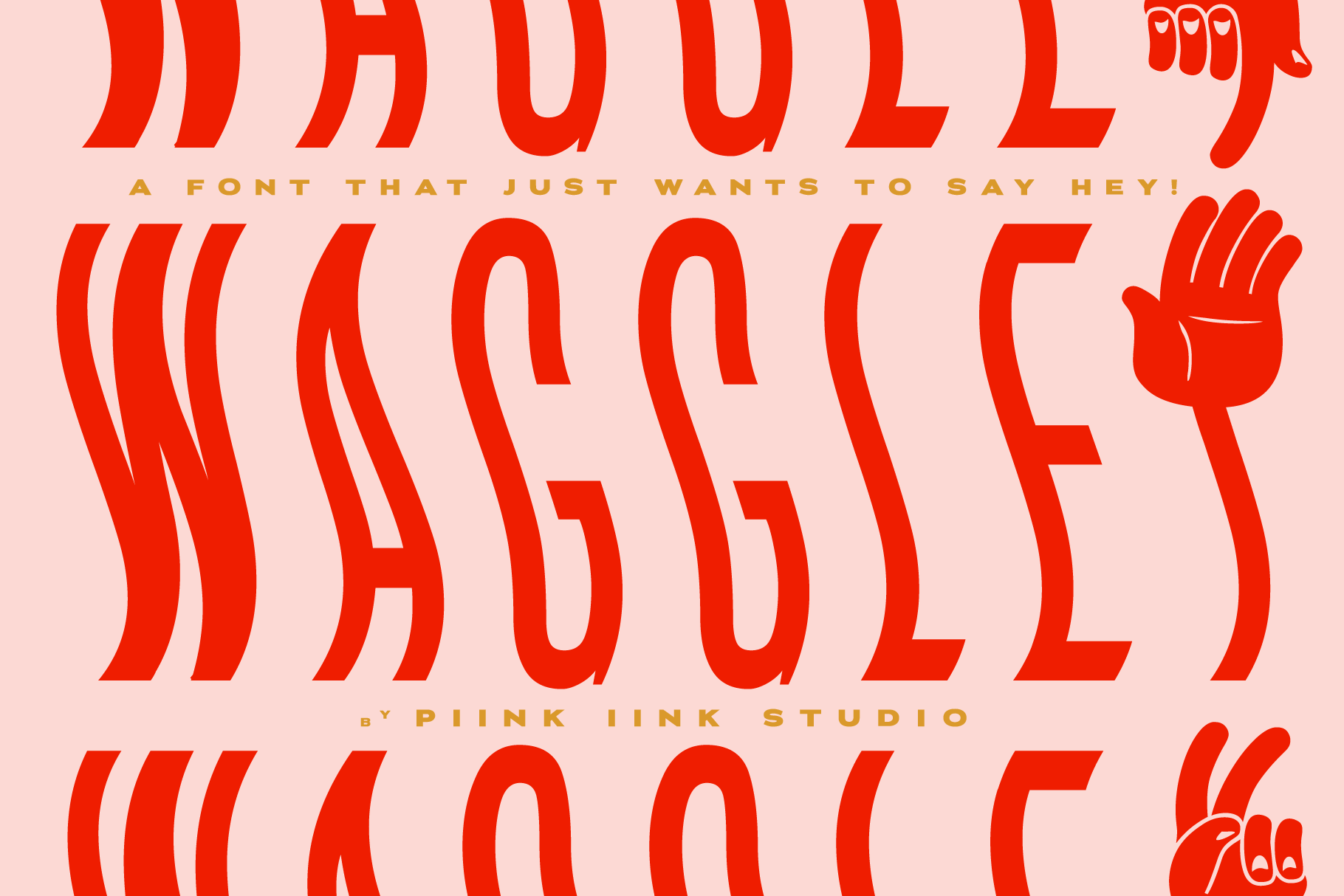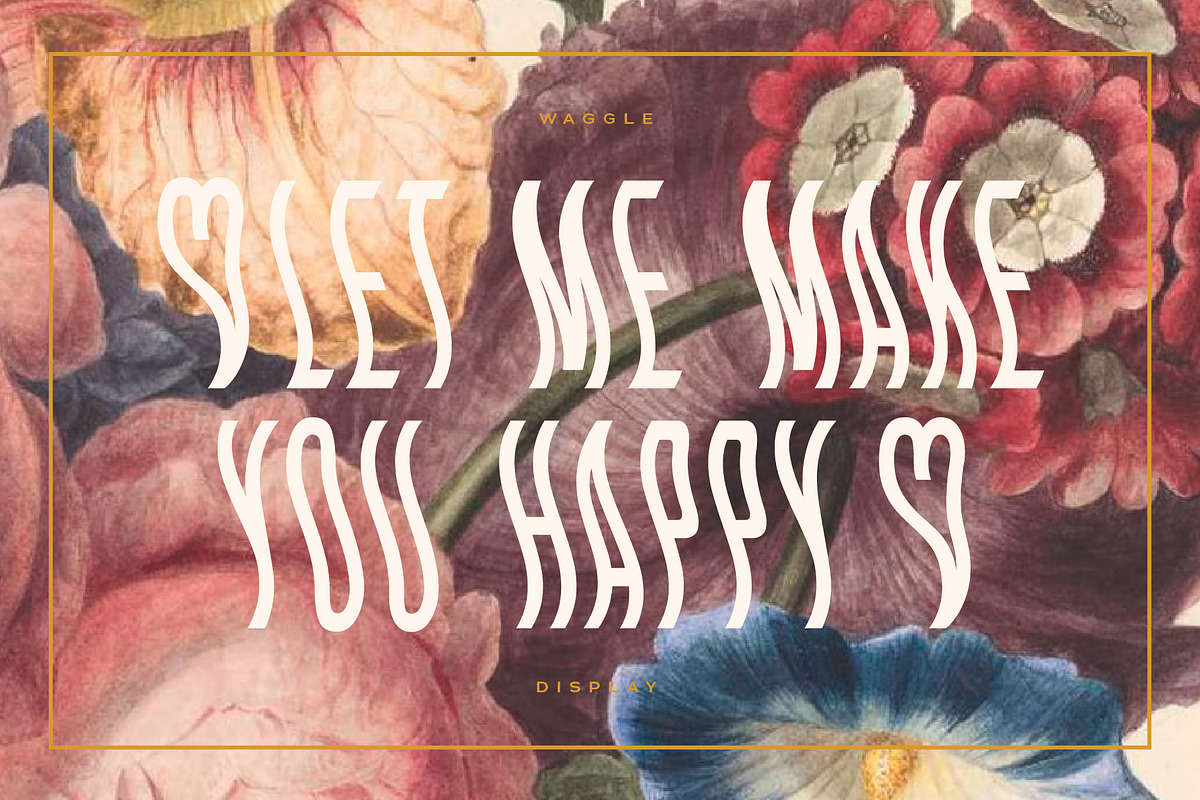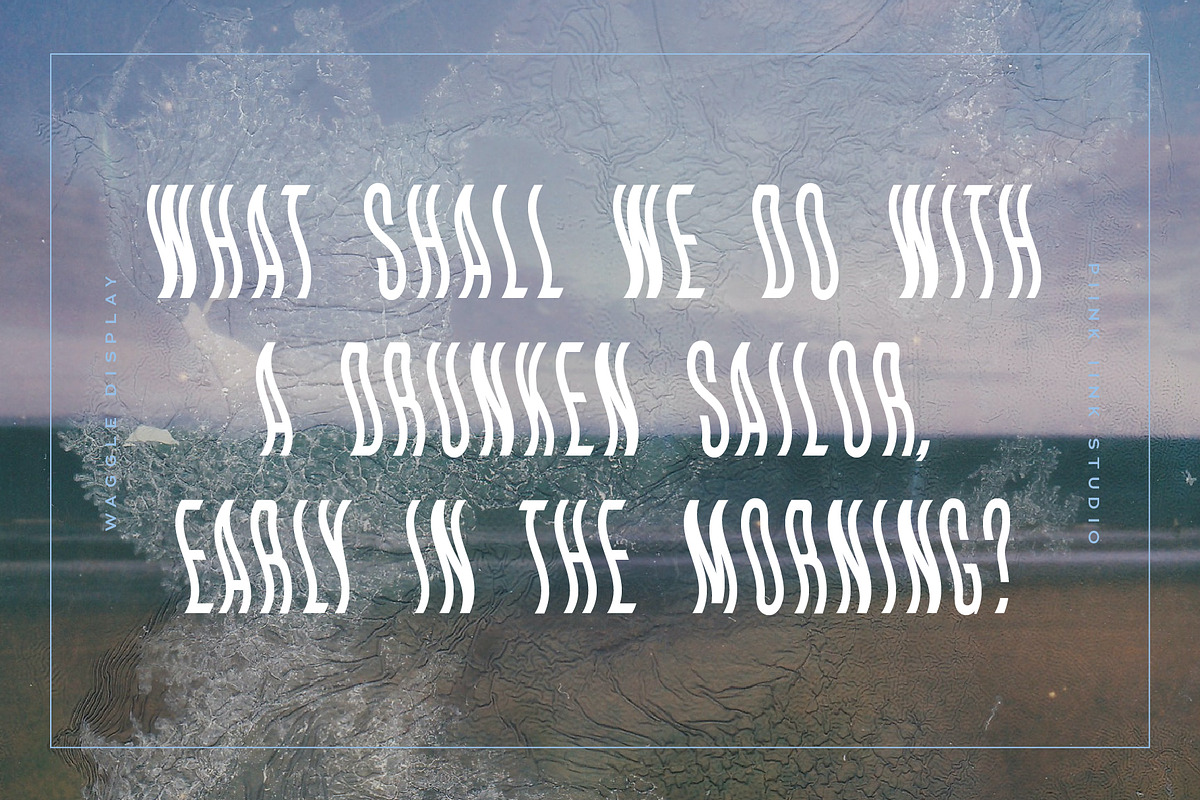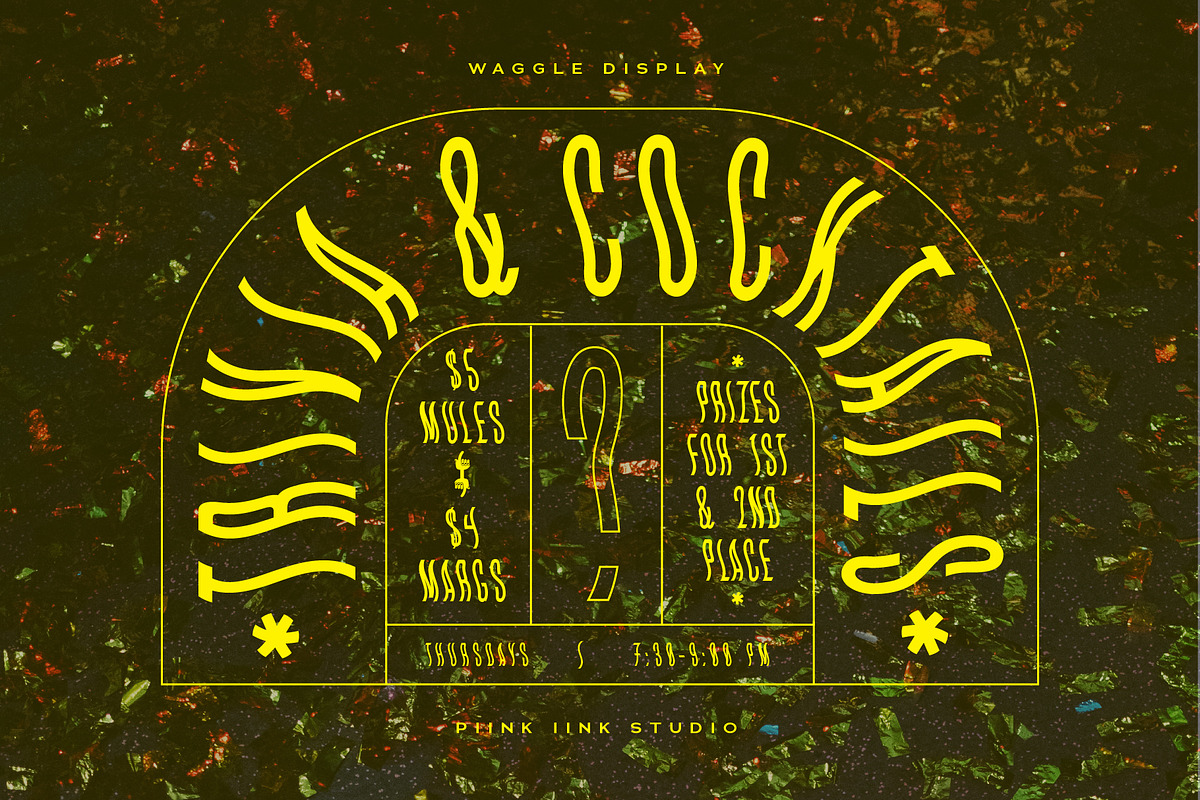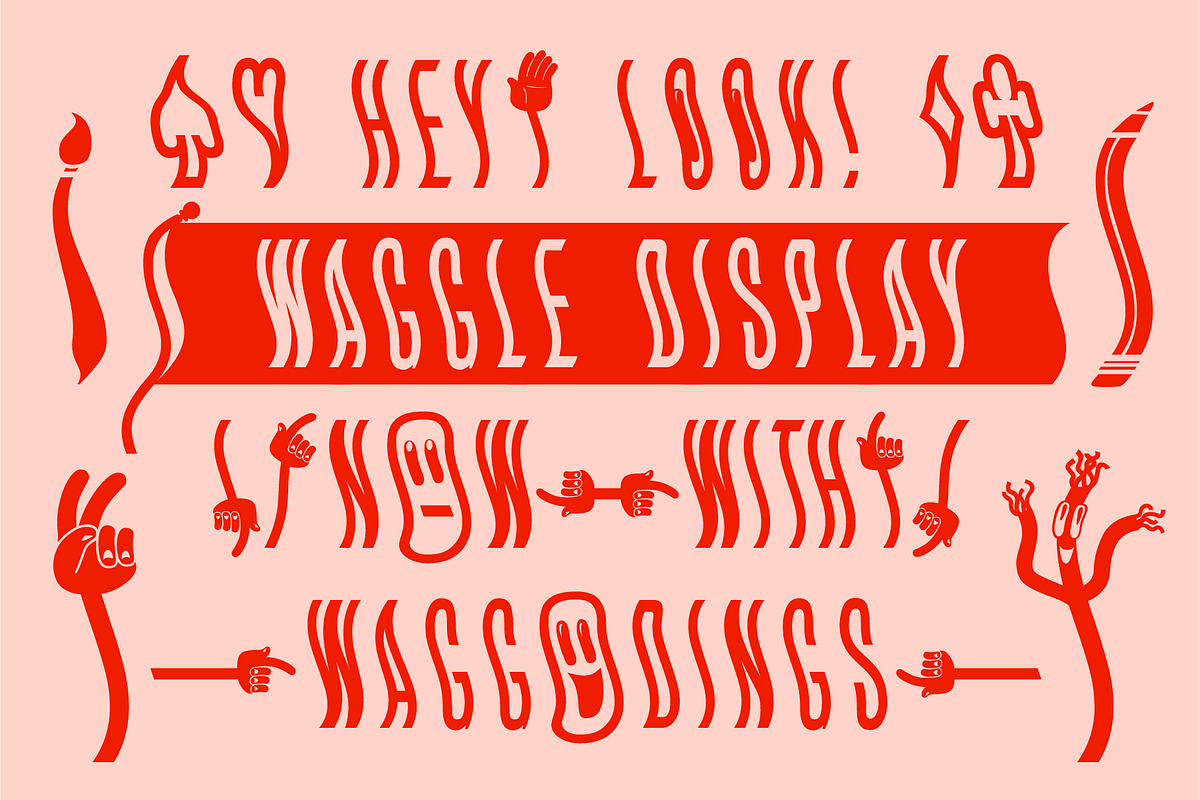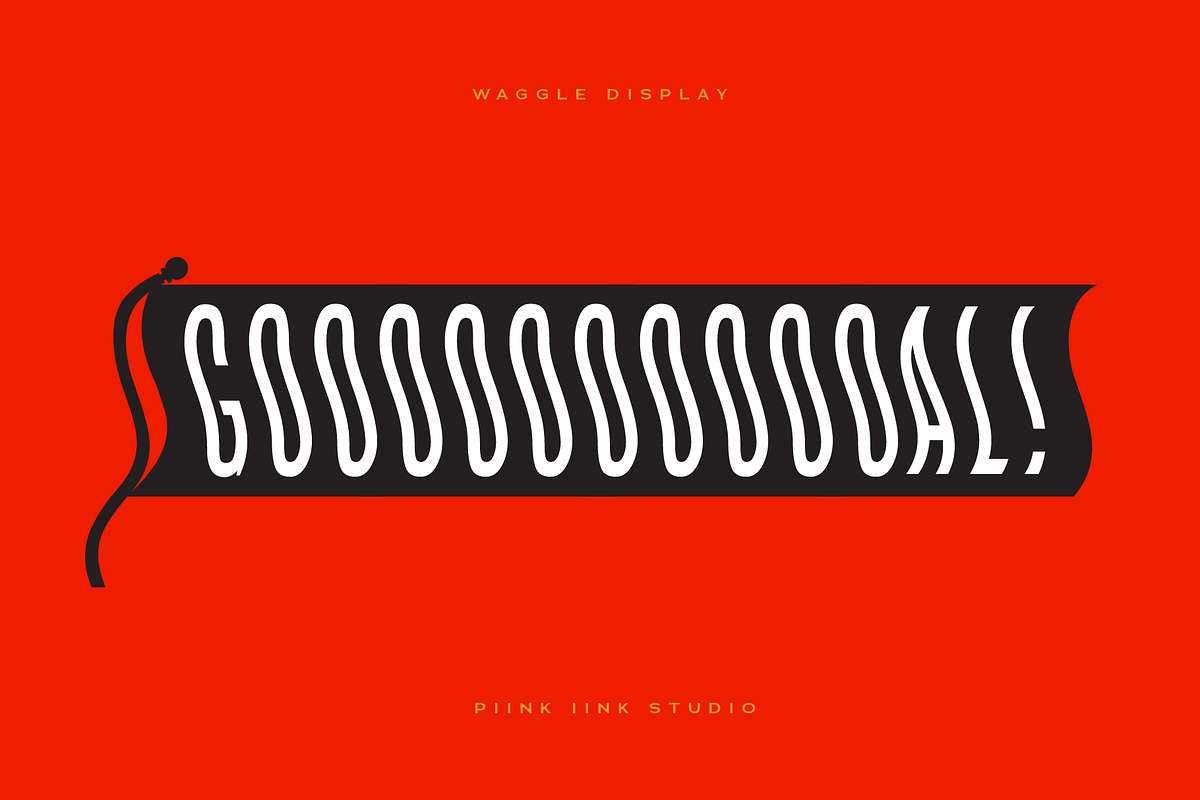
WAGGLE Display Font
This font just wants to wave and waggle and say “Hey!” Updated to include more punctuation, glyphs and wacky new WAGG•DINGS! Waggle is a fun and quirky display font, great for catchy headlines and funky posters. Includes file formats .otf and .woff